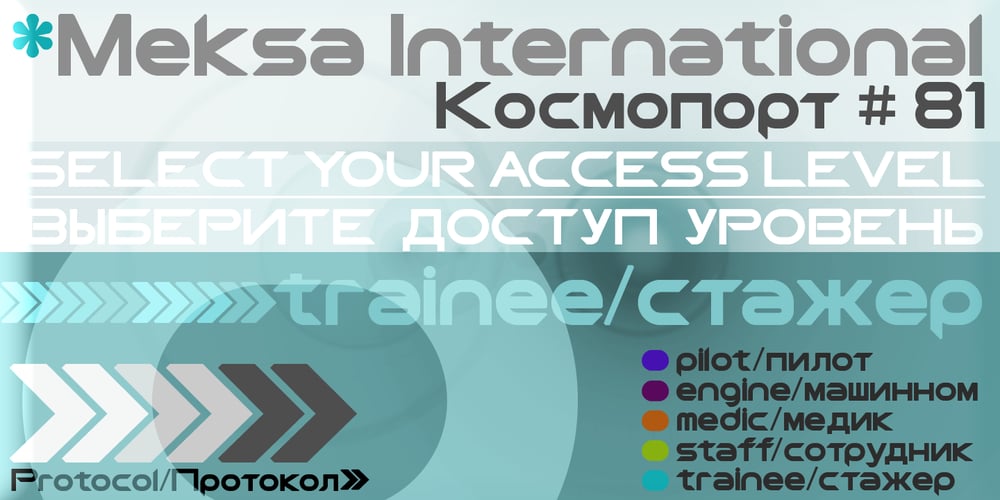
Meksa
Meksa font
Meksa Font Family was designed by Luke William Turvey and published by Okaycat. Meksa contains 1 styles and family package options. Meksa is sleek, minimal & very clean. This wide typeface is perfect for bold headers, impact text, or logo design. Meksa is multilingual, appropriate for international publications. Includes Cyrillic, West European diacritics & ligatures.